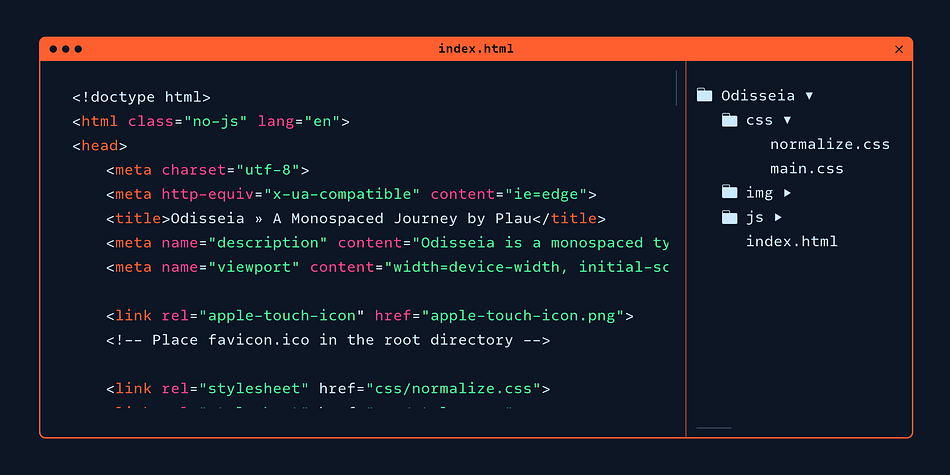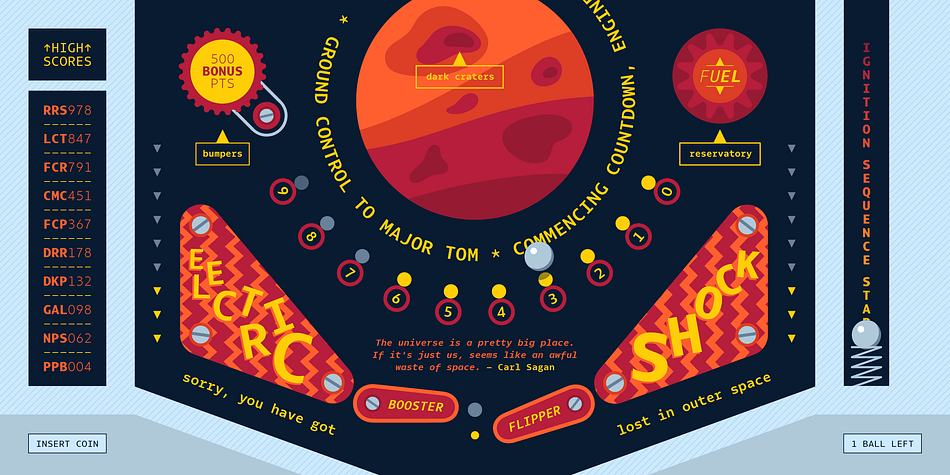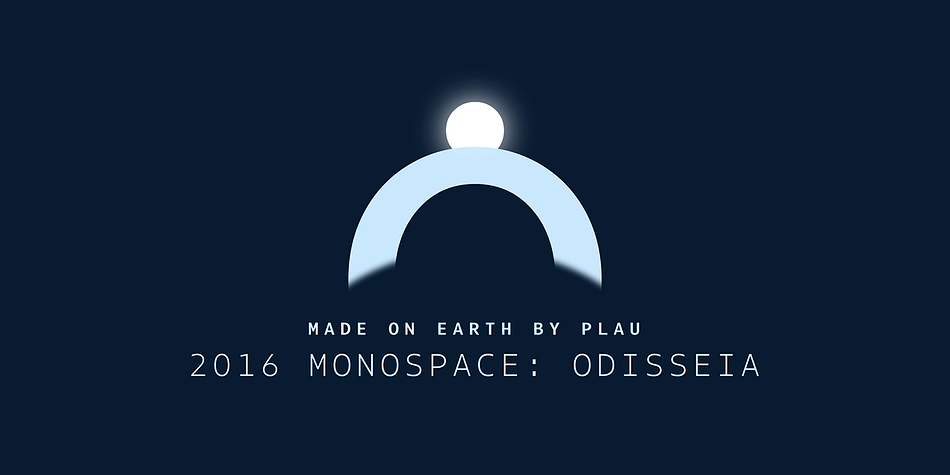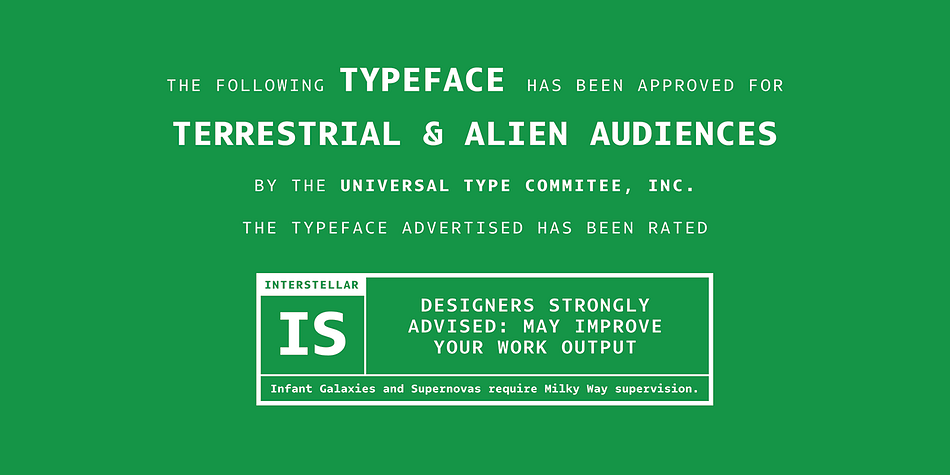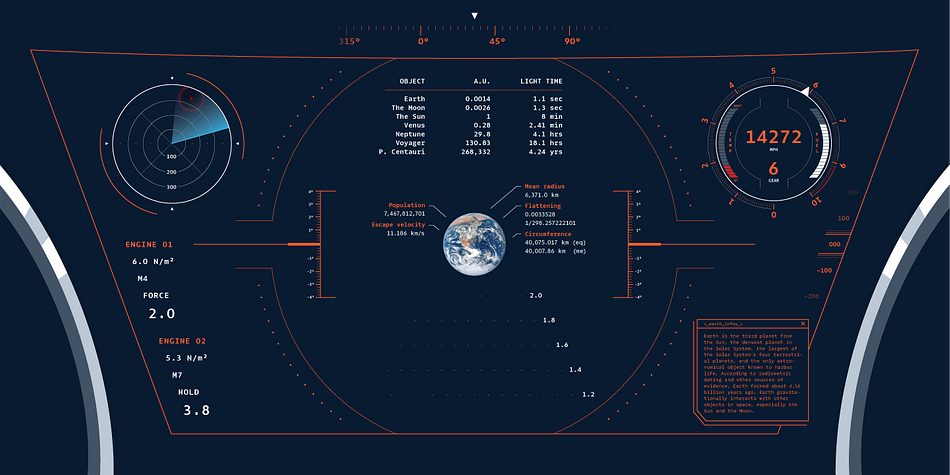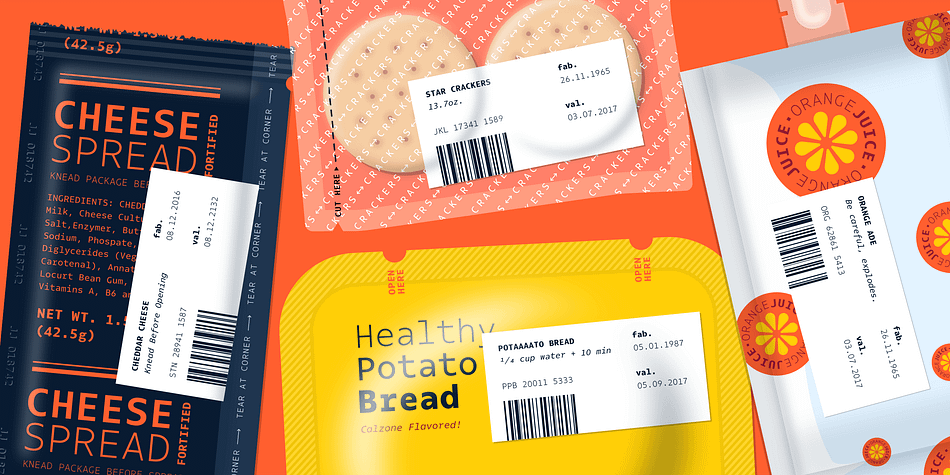
Designed by Rodrigo Saiani and Flora de Carvalho, Odisseia is a sans serif font family. This typeface has eight styles and was published by Plau.
Plau presents Odisseia, a monospace type family in 8 styles designed with simplicity of shapes and a humanist touch. We’ve ventured into monospace territory, where all letters must occupy the same amount of space. This style is usually associated with typewriters and computer terminal fonts.
Like all monospaced fonts, all letters align vertically in a multi line setting. The rhythm created is peculiar, since large letters such as m and w occupy the same space as narrow ones like i. Because we have 4 different weights: light, regular, bold and black the design of some characters have to be adapted to fit the same width and achieve a constant light/dark value throughout.
These features make Odisseia suitable for a specific yet considerable range of uses, from computer coding to systemized communication such as brand identities. This style has been used from high-end brand identity to cutting edge digital applications.
Odisseia sets a little shorter in comparison with other monospaced fonts, and bears a large x-height.